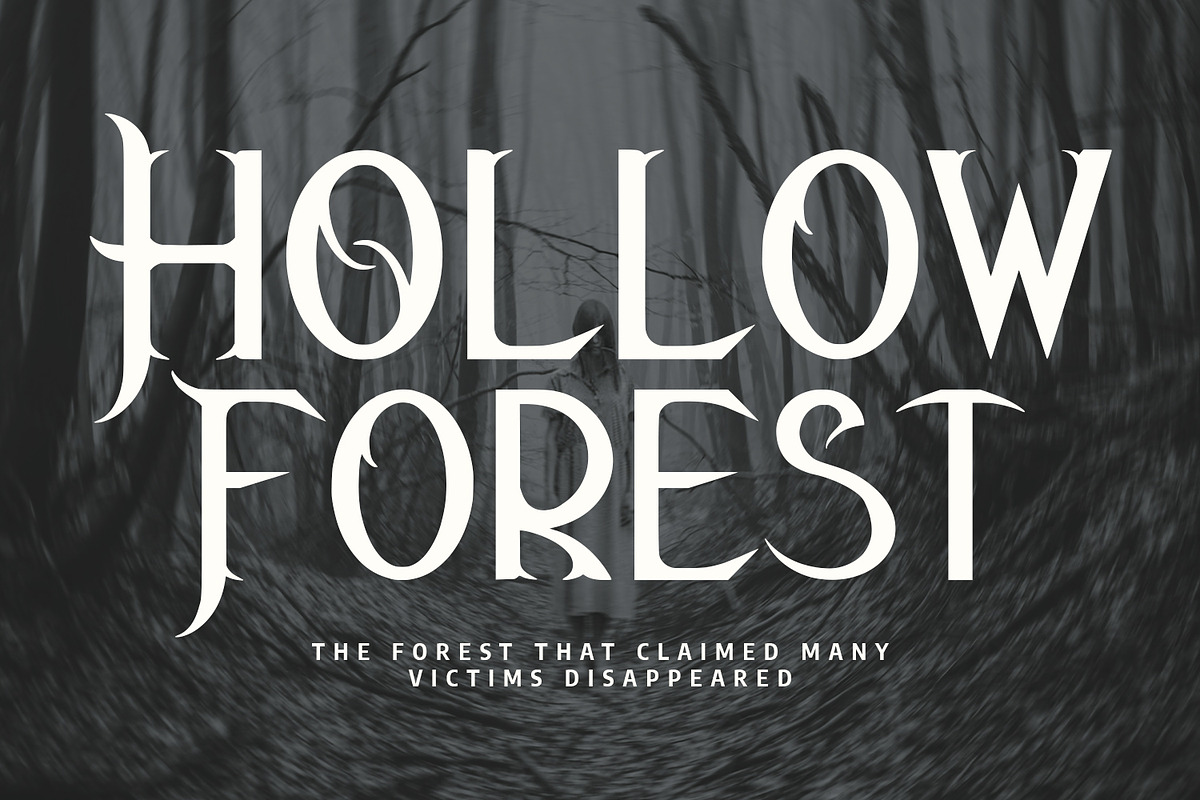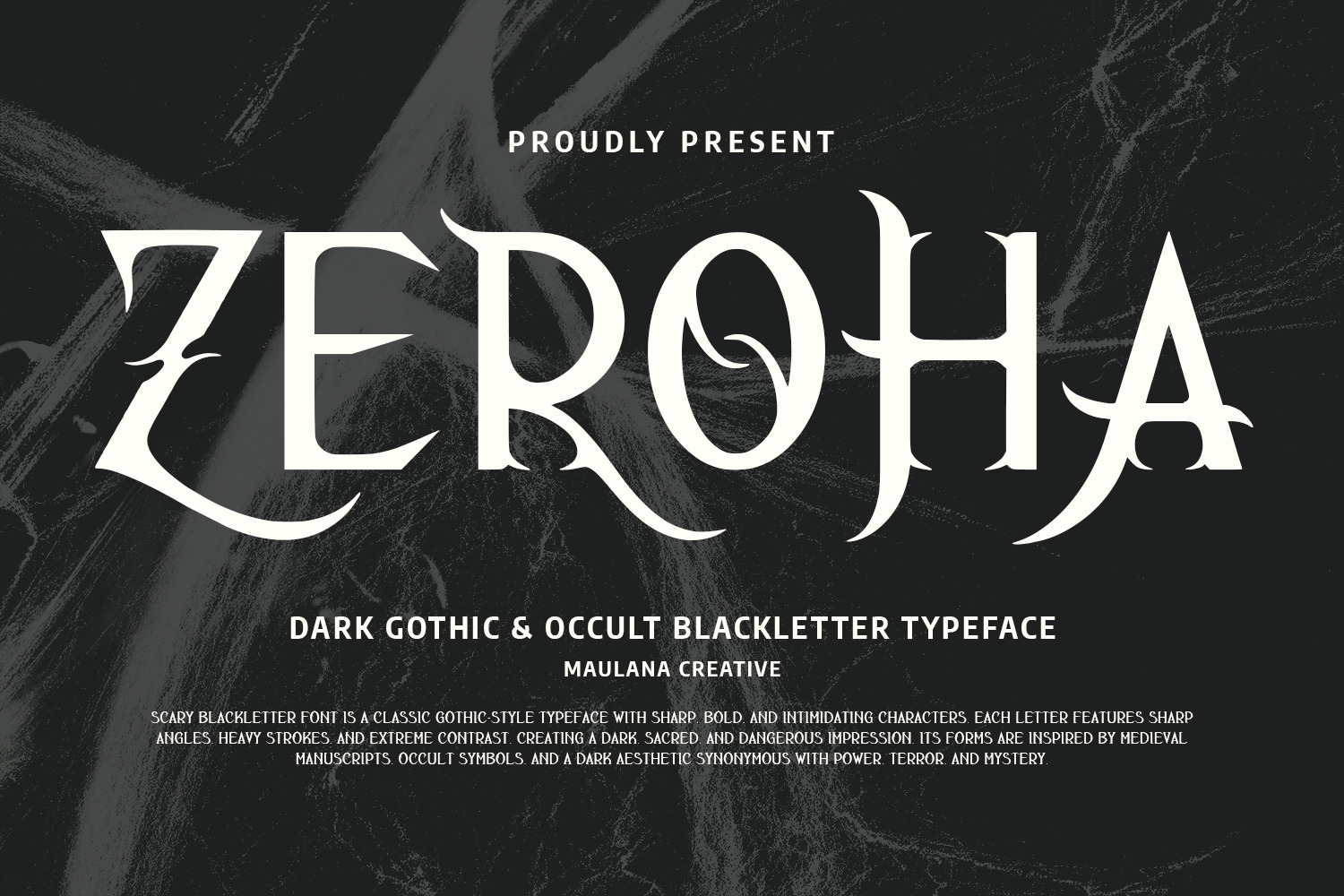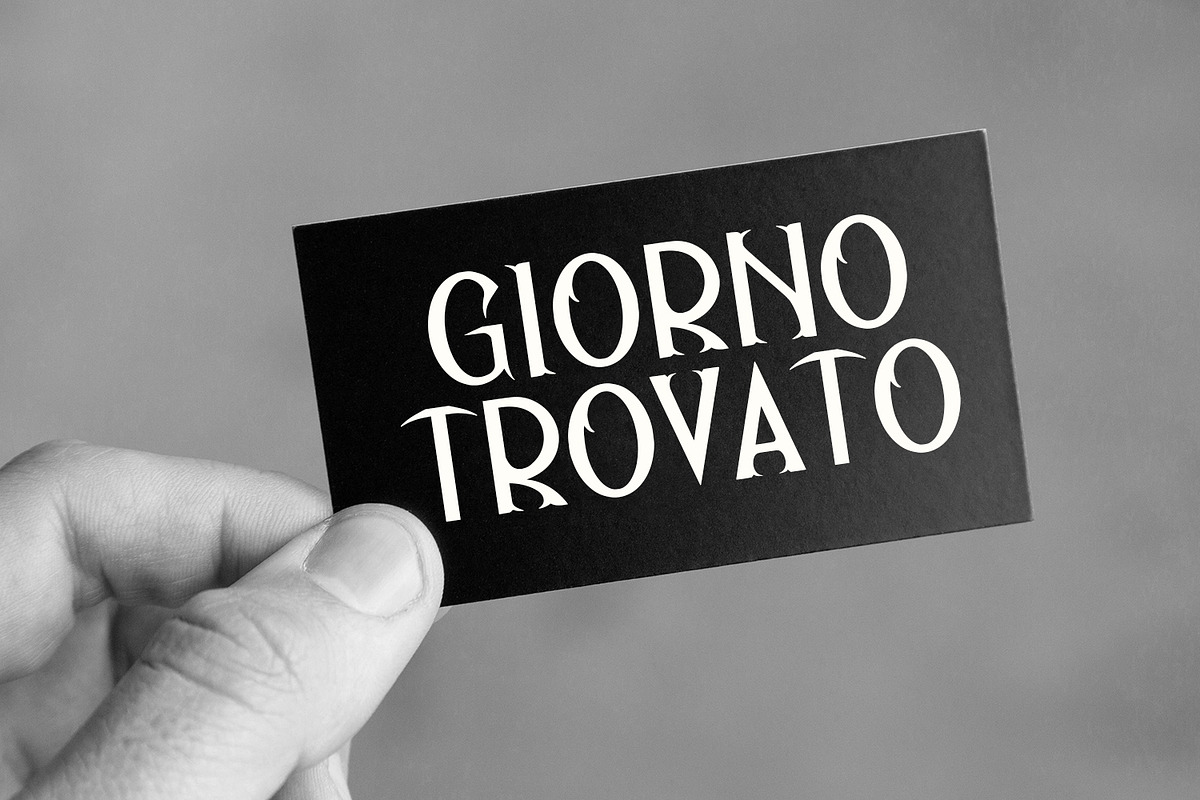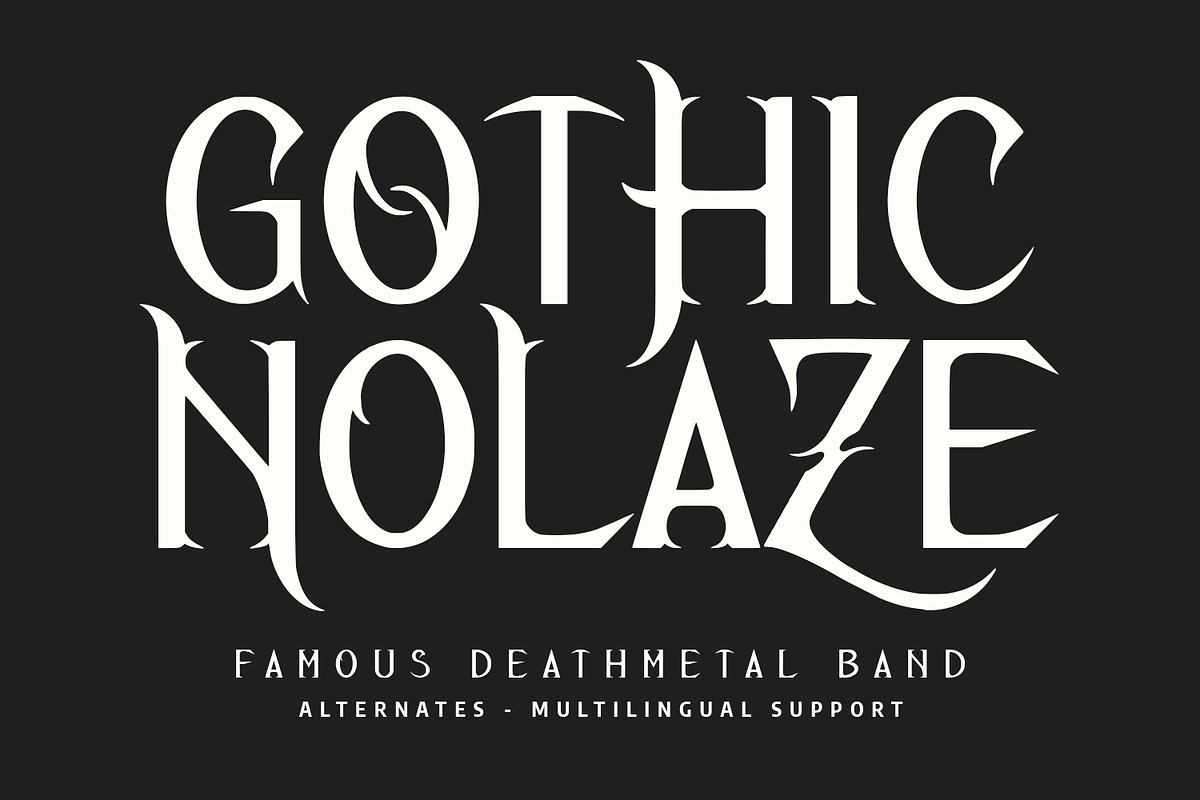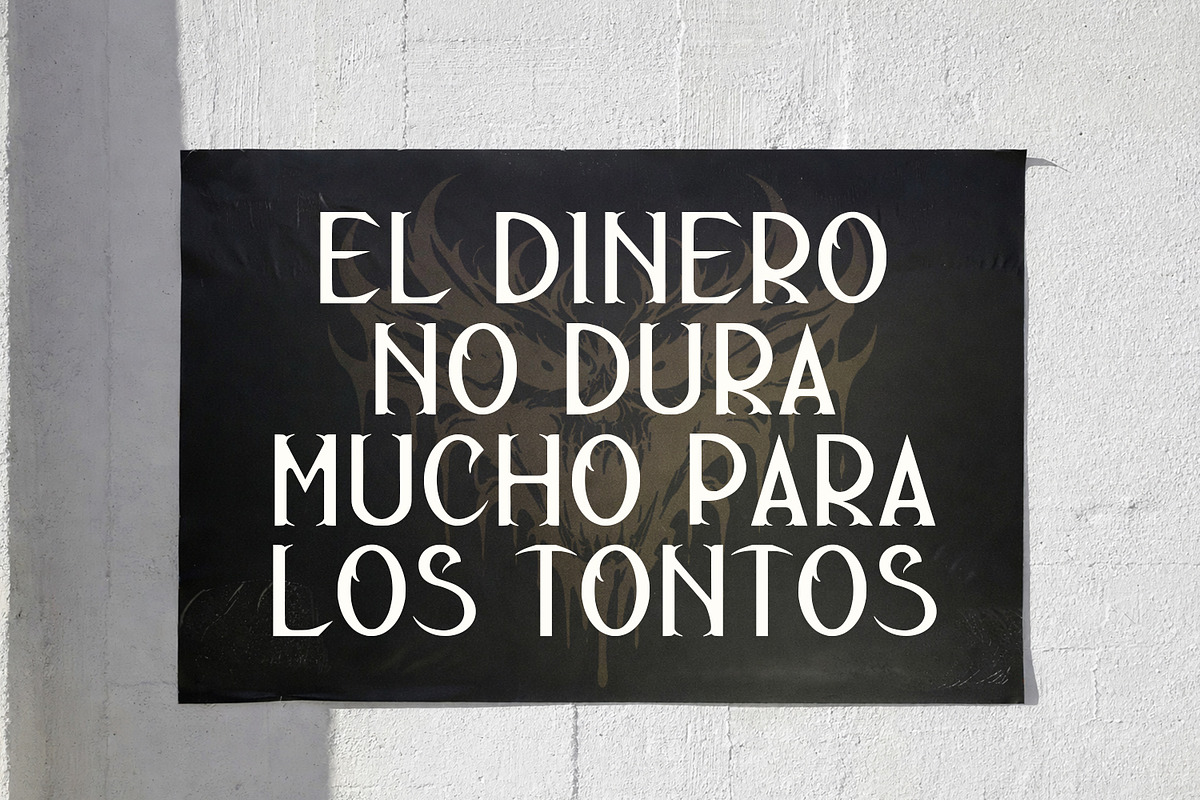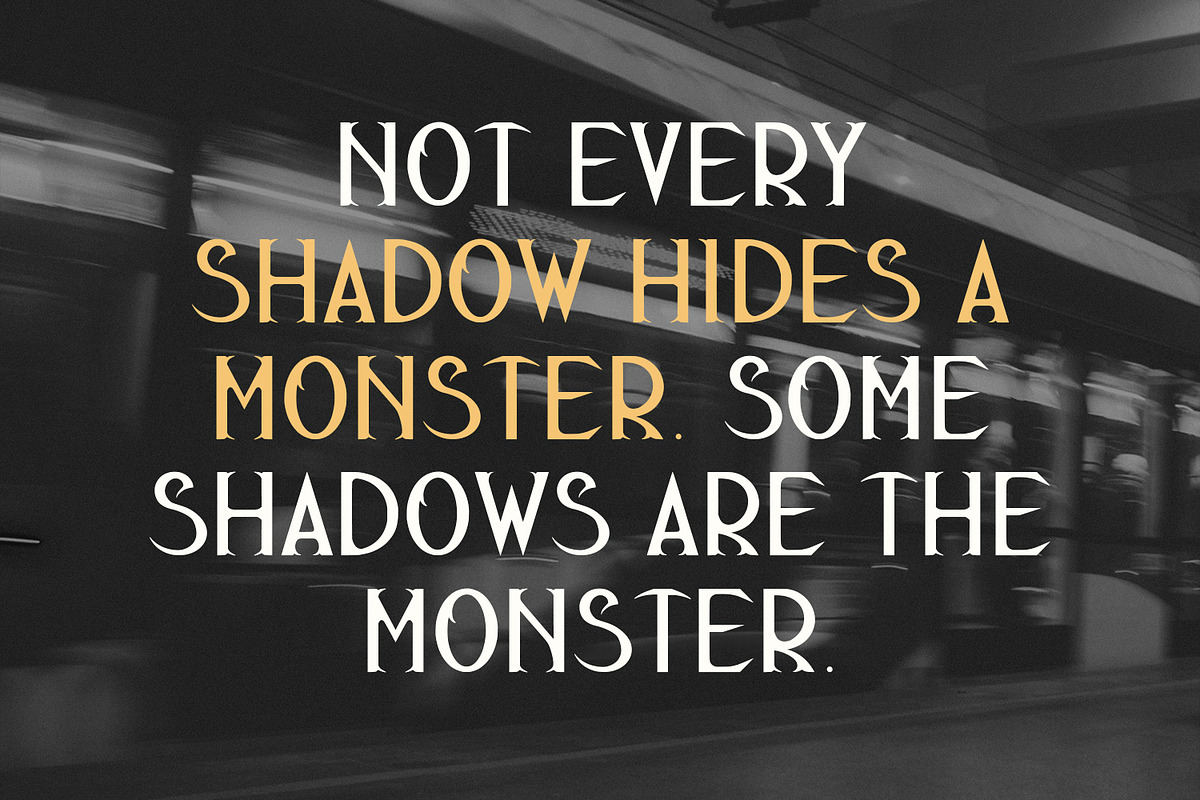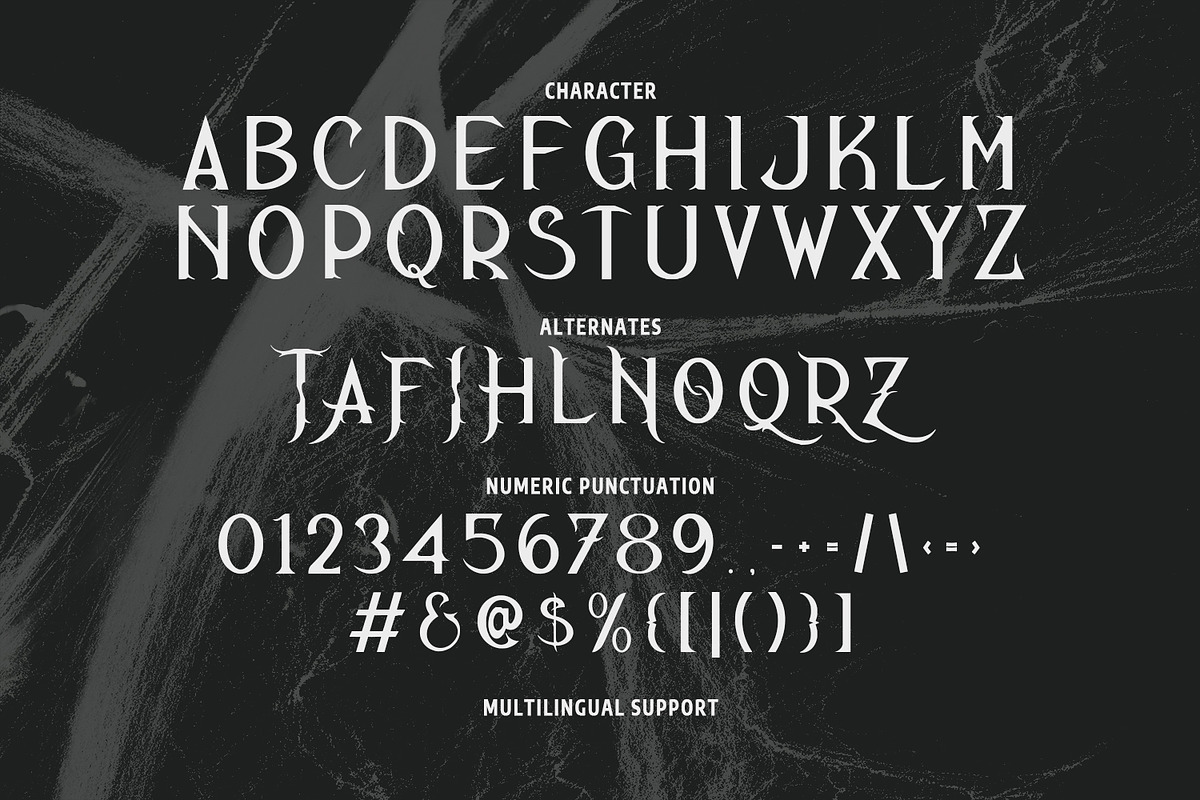
Zeroha Dark Gothic Blackletter Font
Zeroha – Dark Gothic & Occult Blackletter Typeface
Zeroha is a menacing blackletter font that blends medieval manuscript tradition with modern dark aesthetics. Featuring sharp, horn-like terminals, aggressive angles, and heavy strokes, this typeface is designed to evoke a sense of power, mystery, and ancient terror. It is the perfect choice for metal band logos, horror movie titles, occult-themed branding, and any project that requires a "dangerous" visual presence.
- Full Character Set: Includes a complete uppercase alphabet.
- Alternate: A dedicated set of alternate characters for creative customization.
- Full Numeric & Punctuation Support: Includes all standard symbols and numbers.
- Multilingual Support: Ready for global use with a wide range of accented characters and special symbols.